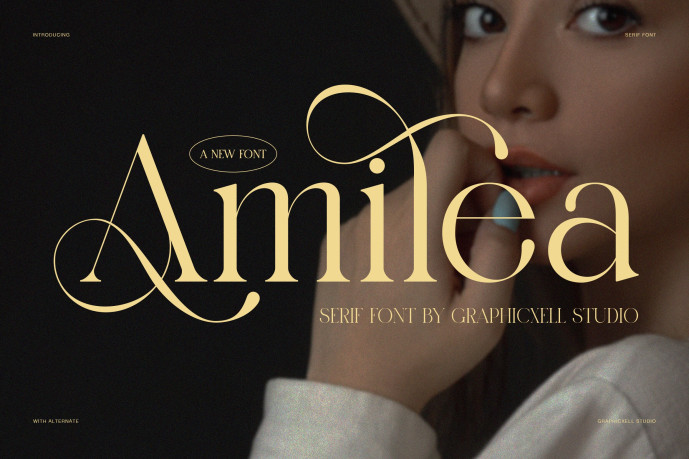
Amilea Font
Designer: Arfianto
Amilea Font – Exude timeless elegance and high-fashion luxury with Amilea, a stunning serif font. Designed with high-contrast thick and thin strokes, delicate serifs, and breathtaking swash alternates, this font seamlessly blends classical sophistication with a modern editorial flair.
Featuring versatile alternate characters, Amilea is the ultimate choice for luxury brand identities, high-end magazine mastheads, chic cosmetics packaging, romantic wedding invitations, boutique logotypes, and stylish quote graphics.